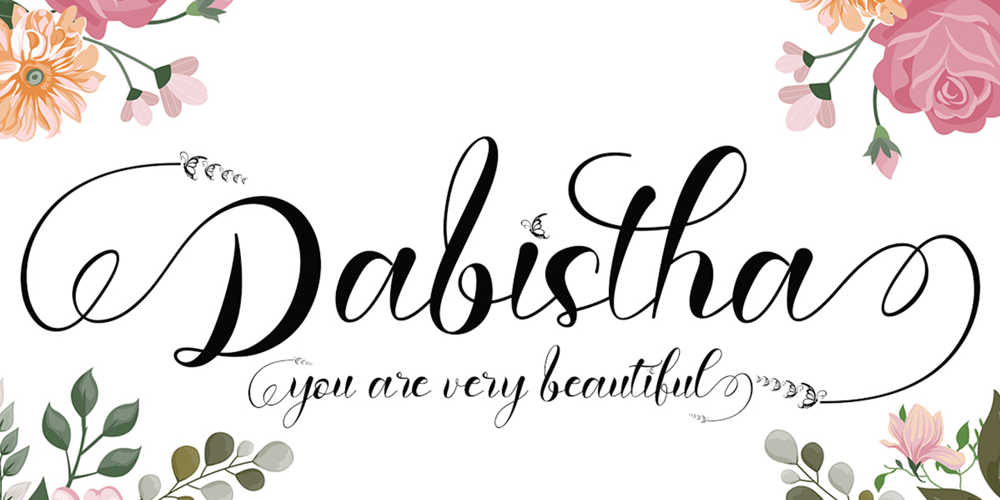
Dabistha
Dabistha font
Dabistha Font Family was designed by Isroni Yoga Prasetya and published by Yoga Letter. Dabistha contains 1 styles and family package options. “Dabistha” is a beautiful handwritten font with butterfly decoration on the alternate letters. This font is perfect for Valentine’s Day, weddings, engagements, Christmas, stickers, posters, banners, and more. Equipped with uppercase letters, lowercase letters, numerals, punctuation, swash, titling, uppercase alternates, ligatures, and multilingual support